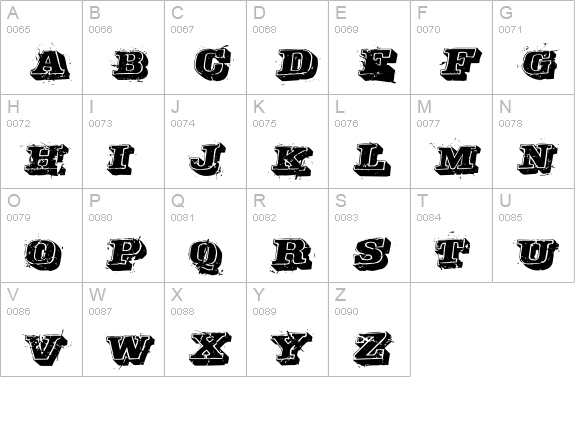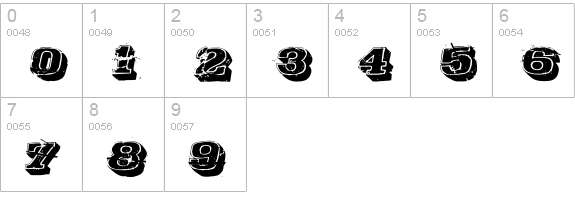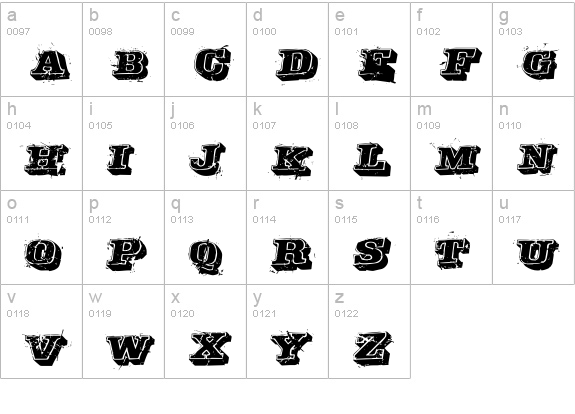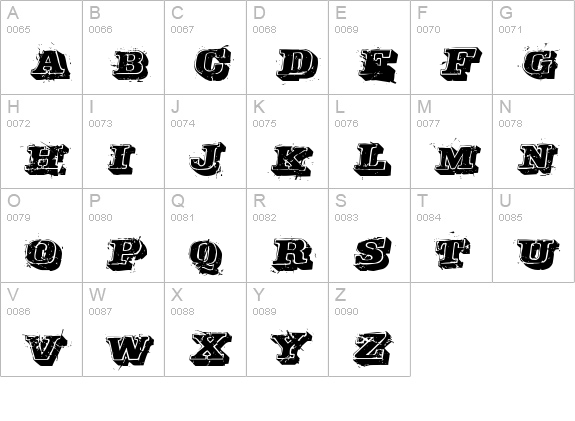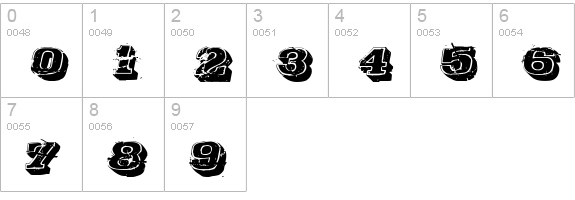
Depraved Font Details
Depraved font is a bold and edgy typeface designed to make a statement. With its sharp lines and unique flair, this font exudes a sense of modernity and sophistication. Perfect for grabbing attention in headlines, posters, or branding projects, Depraved font is sure to leave a lasting impression. And the best part? Depraved font is available for free download at FontsMarket.com. That's right, you can add this striking font to your collection without spending a penny. Don't miss out on the opportunity to enhance your designs with the captivating style of Depraved font. Download it today and let your creativity soar!